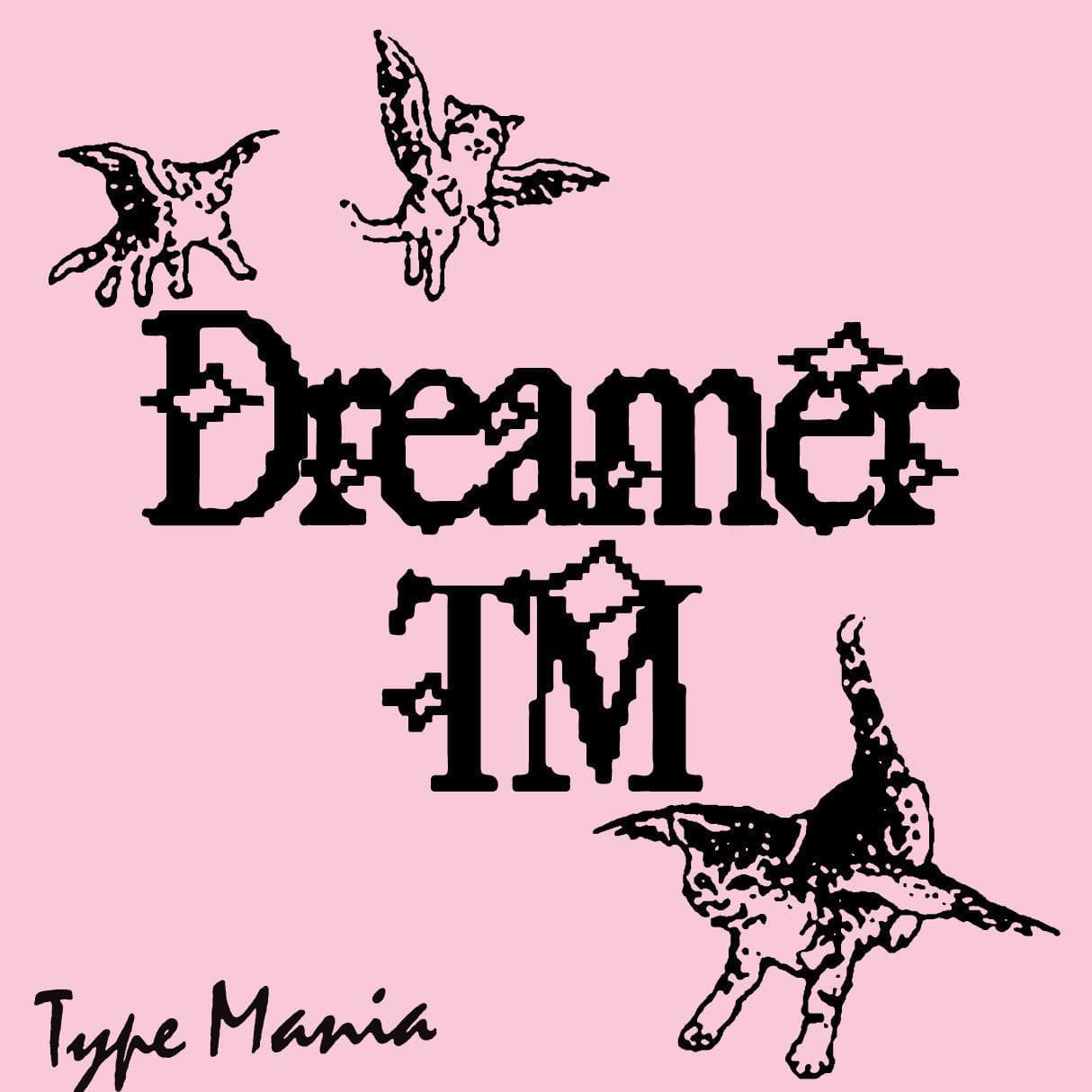
<p>Drift into the fantastic world of <strong>Dreamer TM</strong>, our emotive serif font channeling the Y2K aesthetics. Whether you're designing a poster, creating a logo, or adding a nostalgic touch to your branding, <strong>Dreamer TM</strong> lends an edgy twist to your project ⋆𐦍.ೃ࿔*:・</p> <p><strong>Zip includes</strong></p> <ul> <li>OTF file</li> <li>TTF file</li> <li>WOFF2 file</li> </ul> <p><strong>OpenType features</strong></p> <ul> <li>2 stylistic sets</li> <li>The font is programmed to automatically shift between the stylistic sets whenever the same glyphs are typed side by side</li> </ul> <p><strong>Languages</strong></p> <ul> <li>Basic Latin</li> <li>Western European</li> <li>Euro</li> <li>Central European</li> <li>Pan African Latin</li> </ul> <p><em>Graphic Design is Easy (with Type Mania)®</em></p>